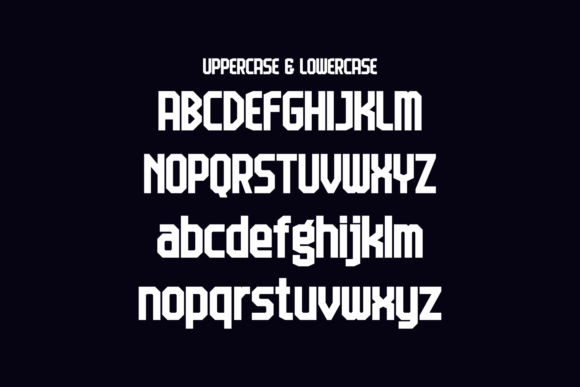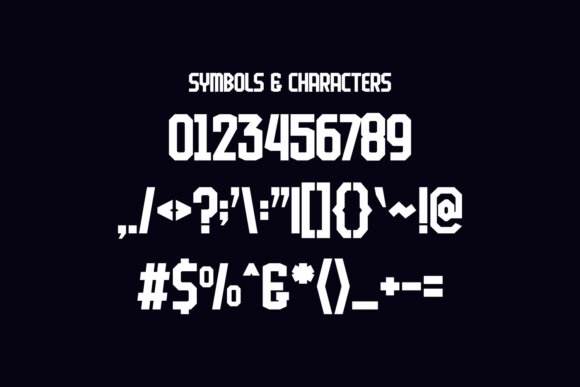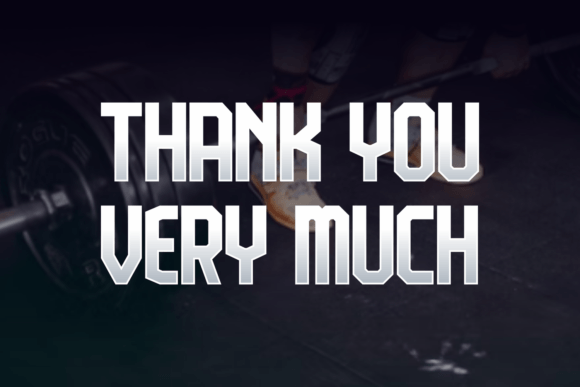
Introduction to Riuman Font
Have you ever stared at a blank page, trying to spark a creative project, only to be met with a sea of blank possibilities? It’s a familiar feeling for many designers, but what if you had the perfect font to kickstart your imagination? Enter the Riuman Font, a quirky and versatile display font that’s about to become your new go-to design resource.
With its unique blend of style and sophistication, the Riuman Font is the perfect addition to any design project. Whether you’re working on a high-quality brochure, a stunning website, or a creative campaign, this font is sure to elevate your design game. And the best part? You can use it on a transparent background, allowing your design to shine in all its glory.
Key Features of Riuman Font
- High-quality design resource ideal for creative projects, offering a professional touch.
- Unique, stylish design with a transparent background, allowing for flexibility in creative projects.
- Includes multiple styles and weights, providing a range of design options for creative projects.
- Designed with high resolution, ensuring crisp and clear text display in various sizes and resolutions.
- Perfect for designers, artists, and creatives looking for a high-quality, versatile font for their projects.
Honest Review: Riuman Font
I recently came across the Riuman Font and I must say it’s been a game-changer for my creative projects. The font is sleek and modern, perfect for those who want to add a touch of sophistication to their designs.
- High-quality design: The Riuman Font is meticulously crafted with attention to detail, resulting in a crisp and clean font that’s perfect for any design resource.
- Transparent background: This feature allows for seamless integration with any design element, making it a valuable asset for any creative project.
One limitation I’ve noticed is the limited font size options. While it’s not a major issue, it would be great to have more flexibility when it comes to font size.
Another minor issue is the lack of support for certain languages, which might be a problem for designers who need to create content in multiple languages.
Overall, I’m impressed with the Riuman Font. Its high-quality design and transparent background make it a valuable resource for any creative project. While it has some limitations, I believe it’s still a great choice for designers looking for a free and reliable font.
For optimal results, use the Riuman Font in combination with high-quality images and a well-designed layout. Experiment with different font sizes and styles to create visually appealing designs. You can also use the font in conjunction with other design resources, such as graphics and icons, to create a cohesive look.
Common Use Cases for Riuman Font
The Riuman Font is ideal for various creative projects, including logos, business cards, social media graphics, and presentations. Its high-quality design and transparent background make it perfect for overlaying text on images or creating visually appealing designs.